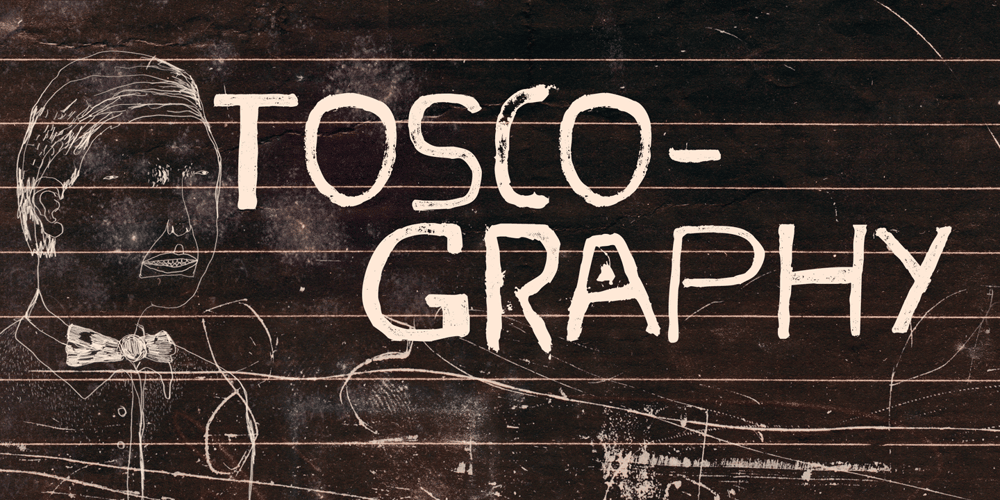
Toscography Font Family was designed by Eduardo Recife and published by Misprinted Type. Toscography contains 1 styles and family package options. Toscography is inspired by vernacular and naive hand-painted walls and signs from Brazil. It feels organic, spontaneous and fresh and it has a light texture on its characters that makes it feel like it is starting to decay.